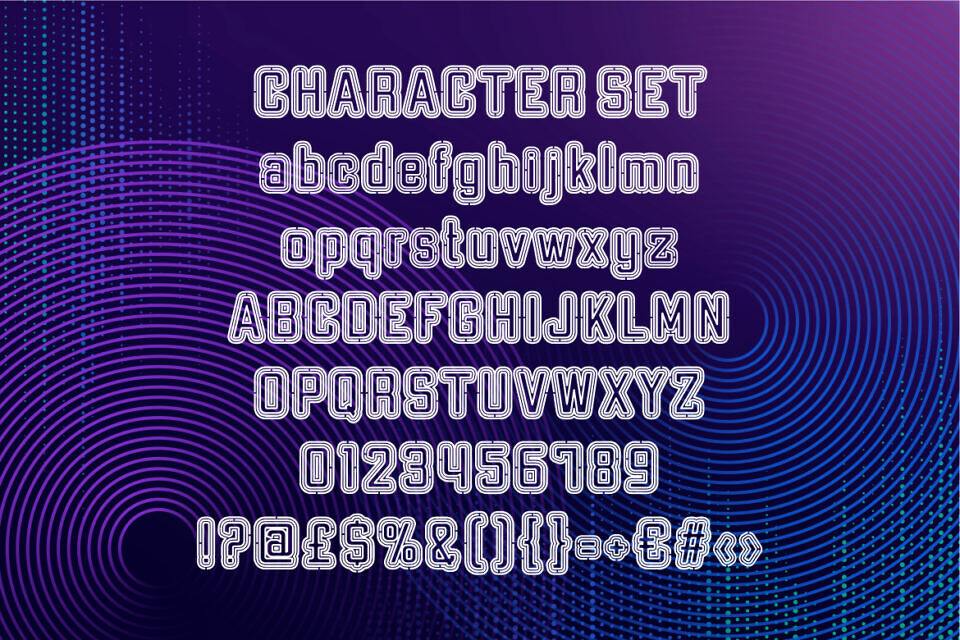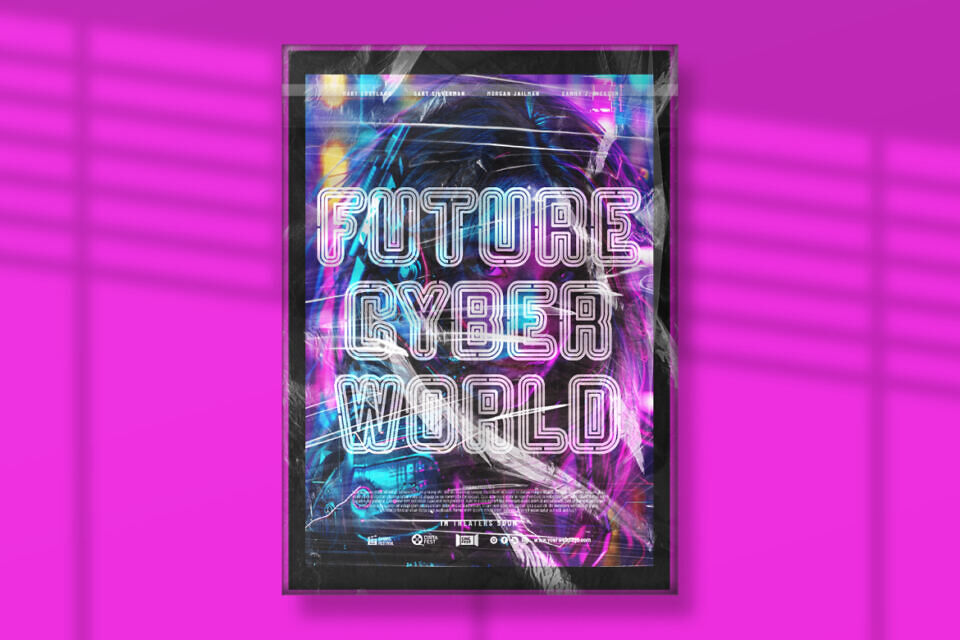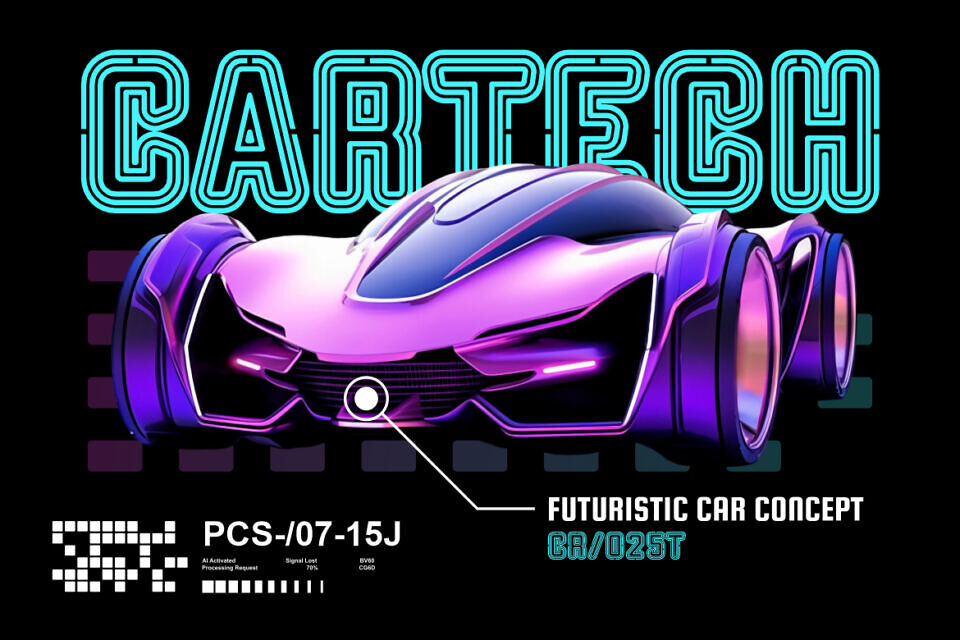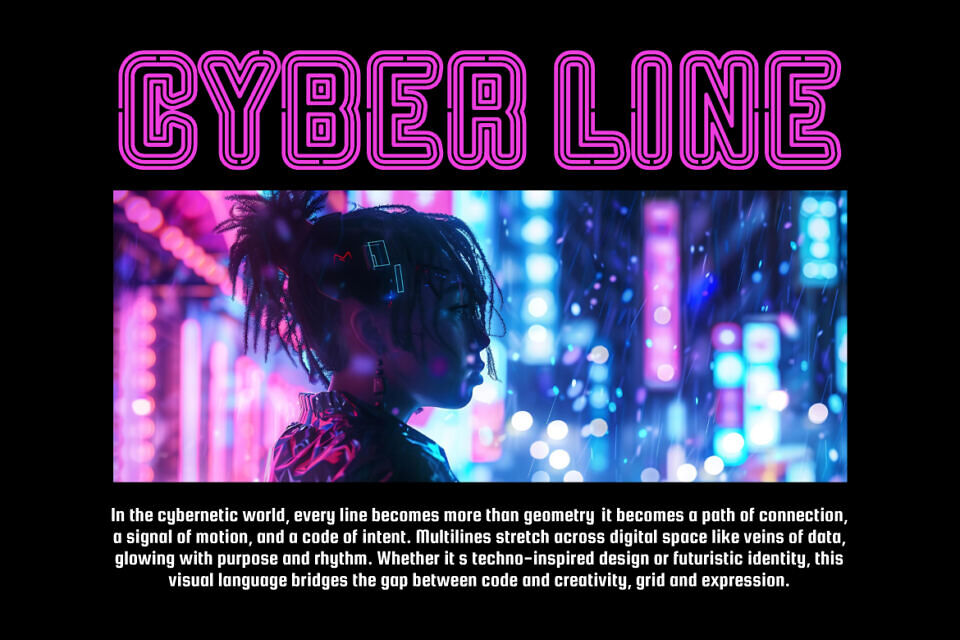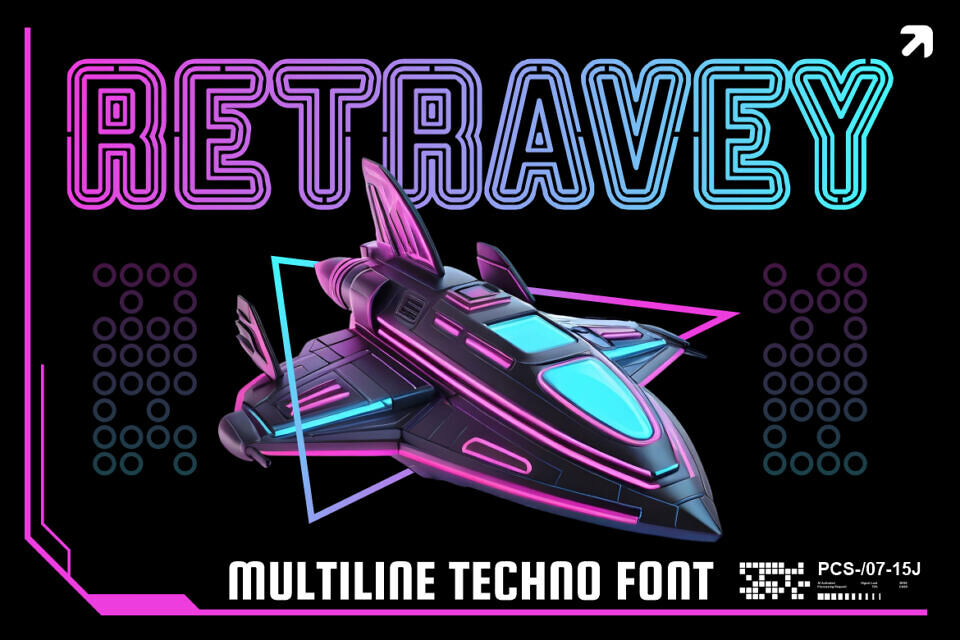
Retravey Font
Retravey Multiline Font is a futuristic typeface designed with rhythmic neon lines that echo cyberpunk aesthetics and tech-inspired energy. Each character is constructed using evenly spaced parallel strokes, creating a multilayered illusion of depth and digital motion.
The font style combines rounded geometric forms with precision linework, channeling retro-futurism while staying relevant to today’s digital visual culture. Retravey is ideal for projects that demand bold identity and futuristic flair.
Whether you’re designing a sci-fi movie poster, a music festival headline, or a high-tech branding campaign, Retravey energizes your typography with clarity and style.